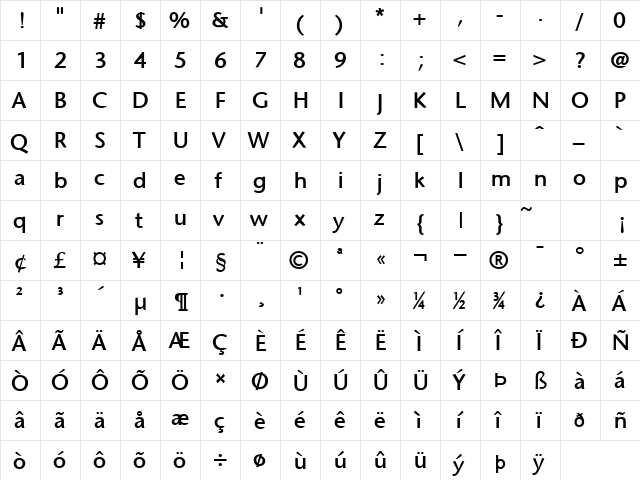
Optimist Bold
Design Context for Optimist Typeface
Optimist offers clean, dependable letterforms without strong stylistic allegiance, making it a practical choice for designers who need flexibility. The heavy weight commands attention and anchors typographic hierarchies.
Pro Tip: Use Optimist in both headline and body roles to test its range before committing to a single application.